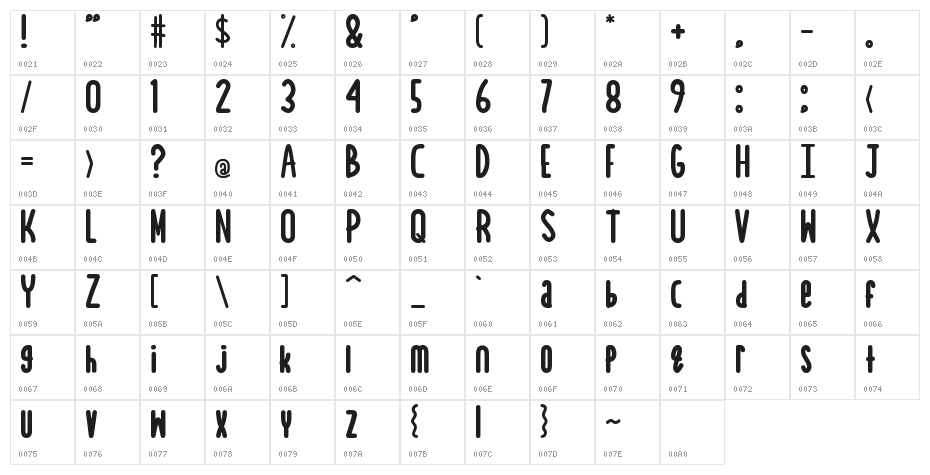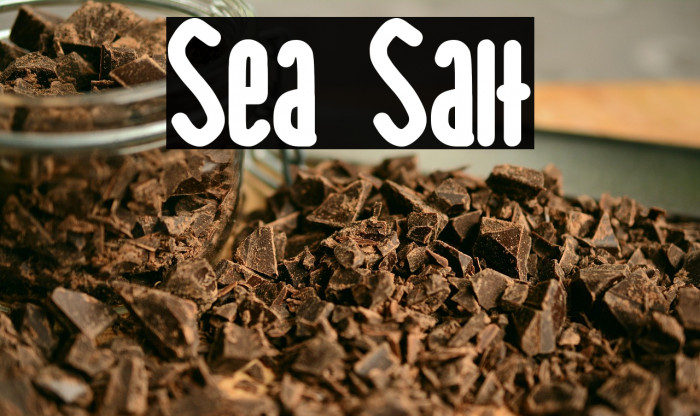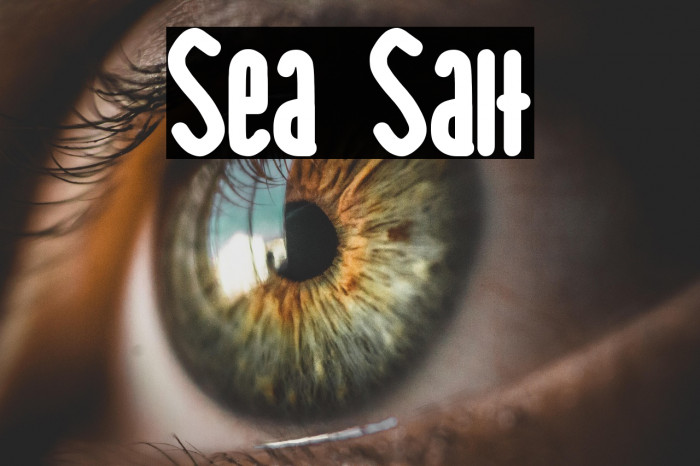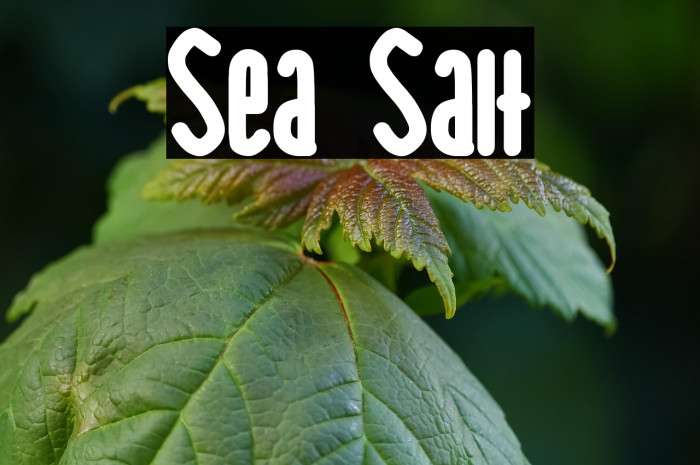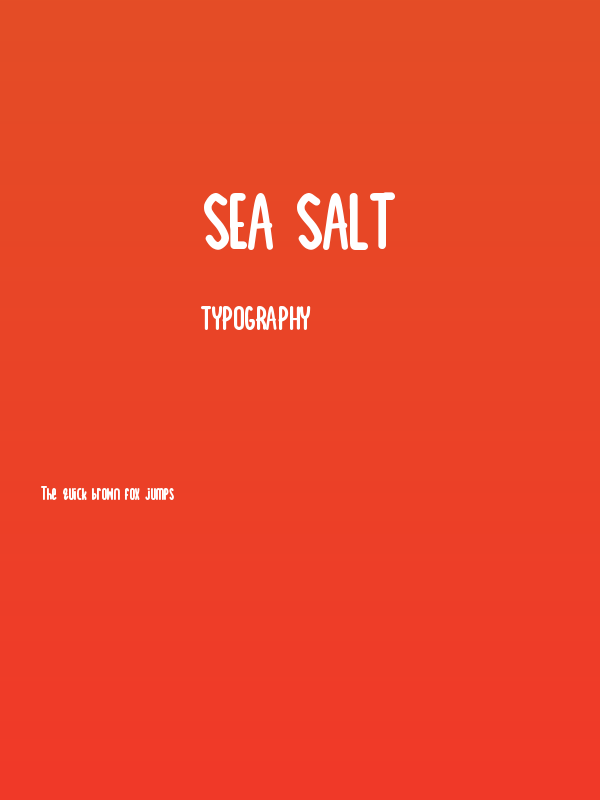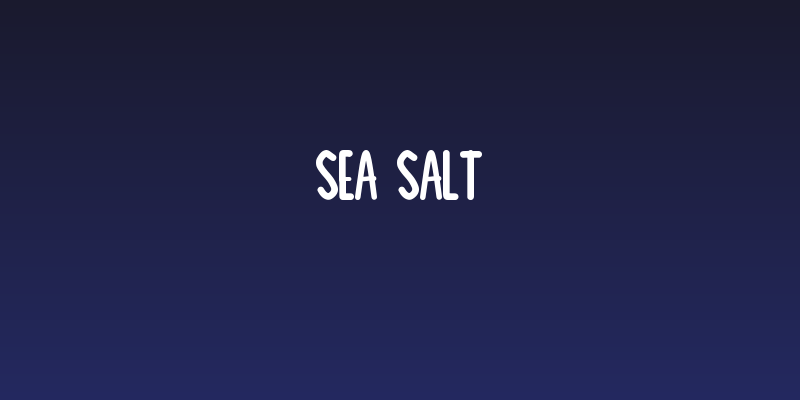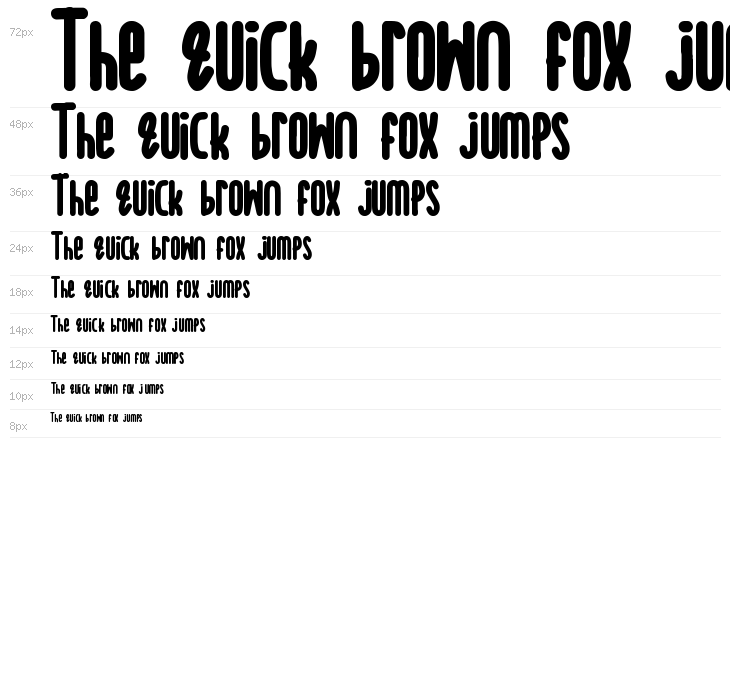
Sea Salt Font
Sea Salt Description
This font features a playful and bold design with rounded edges and a slightly condensed form. The characters are uniform in width, giving it a cohesive and structured appearance. The uppercase and lowercase letters maintain a consistent style, with a whimsical touch that adds personality. The numerals are clear and easy to read, matching the overall aesthetic. Special characters are included, maintaining the same playful and bold characteristics. This font is ideal for projects that require a fun and engaging look, such as children's books, posters, or branding for creative industries.
| Width | Condensed |
| Overall Style | Playful, Whimsical |
| Proposed Projects | Children's books, posters, creative branding, playful packaging. |